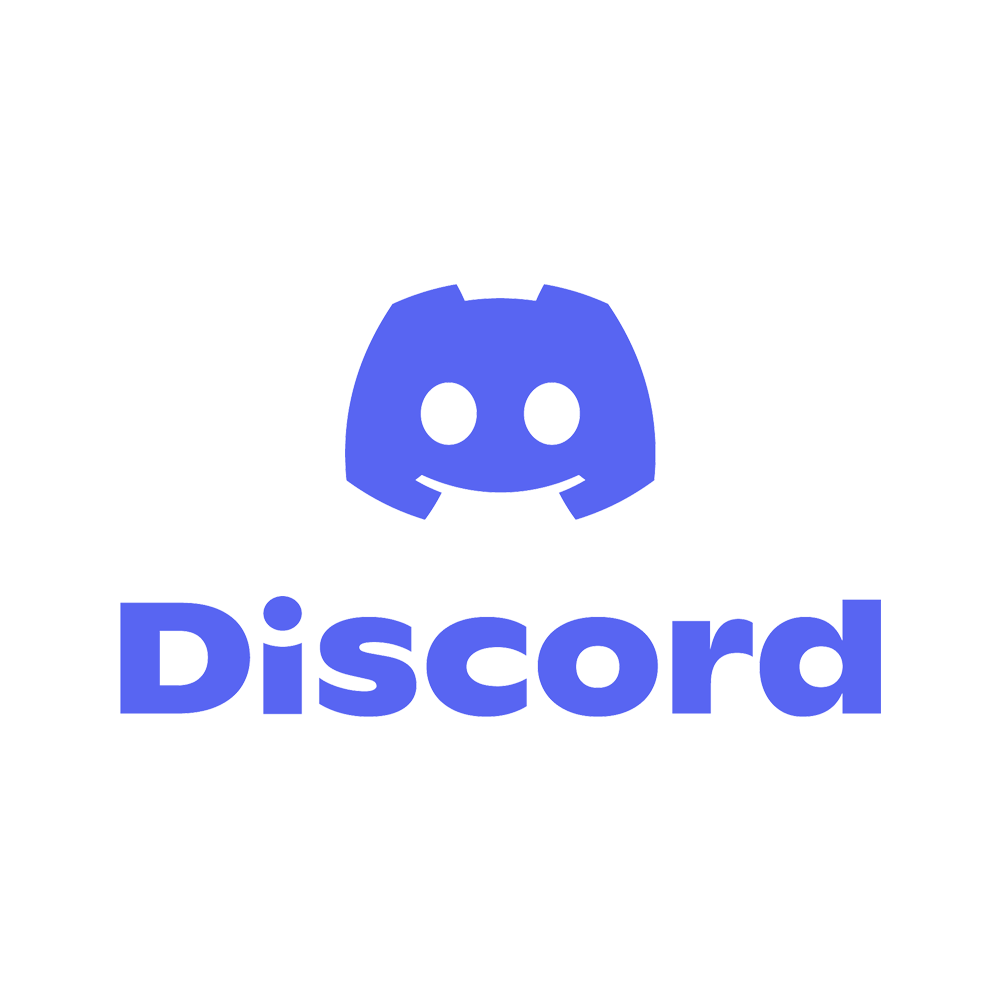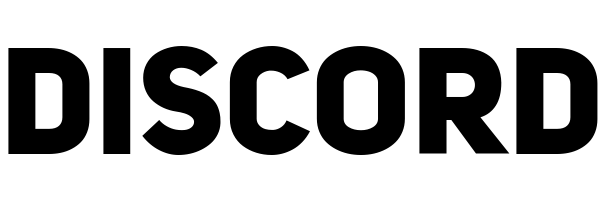
Discord Logo Font
Fonts in UseDiscord is a popular voice and text chat platform used by millions of gamers and communities worldwide. It allows users to create and join servers, voice chat with friends, share media, and engage in group activities.
Discord updated its logo on May 13, 2021, and now uses a customized version of the Ginto Nord typeface designed by Seb McLauchlan and released through Dinamo in 2018.
The old Discord logo used a modified version of Uni Sans Heavy, a font designed by Svet Simov in 2009.